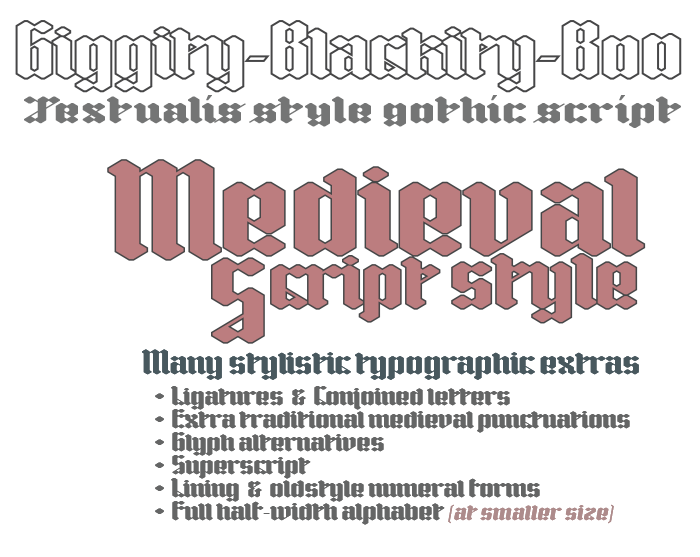
• Another textualis style calligraphic blackletter / gothic script typeface.
Besides the Basic Latin character set this has a lot of special use characters and alternatives too, such as:
Ligatures, Superscript, lining (default) & oldstyled numeral forms (located in halfwidth), traditional medieval punctuation marks (located in private use). And there is even a complete, but slightly modified & smaller version of the alphabet located in the Halfwidth unicode block as well.